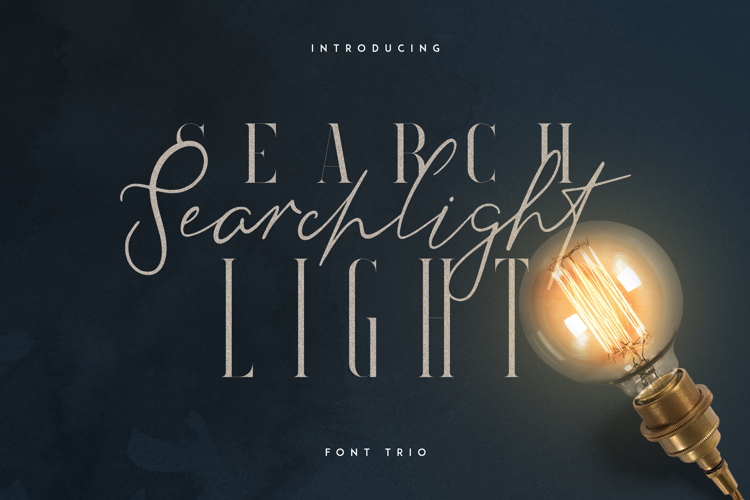
Searchlight Serif Font
Serif Style
INTRODUCING Font trio Searchlight
Searchlight is classy, vintage font trio with total of 3 font styles, ligatures and multilingual support. It's a very versatile font that works great in large and small sizes.
Searchlight is perfect for branding projects, home-ware designs, product packaging, magazine headers - or simply as a stylish text overlay to any background image.